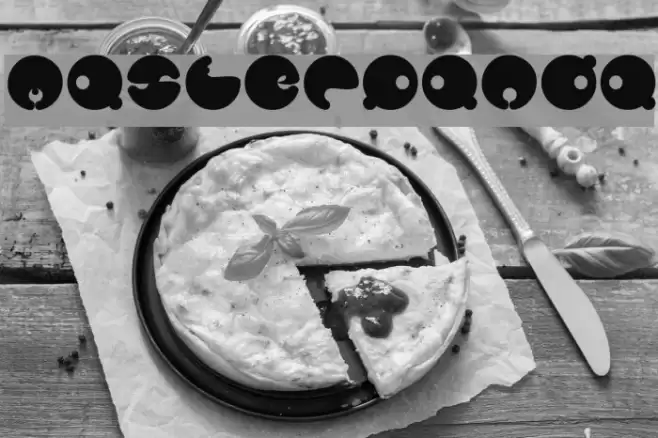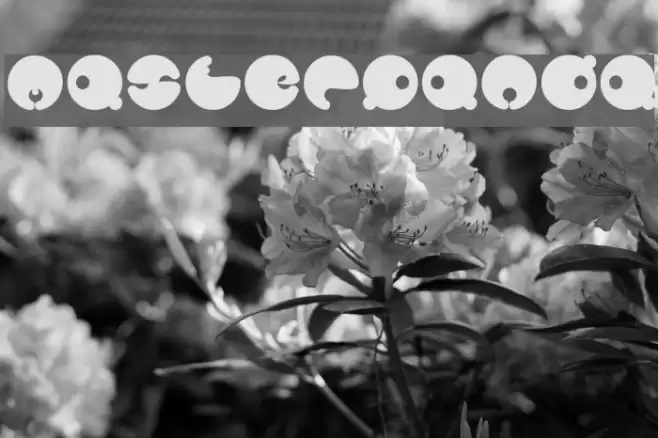
masterpanda Font
masterpanda Description
This font features a bold, playful design with characters that are predominantly circular in shape, each incorporating a unique cut-out or notch that adds a whimsical touch. The letters are heavily stylized, with a consistent thickness throughout, creating a cohesive and uniform appearance. The overall look is modern and eye-catching, making it suitable for creative and fun projects. The font's distinctiveness lies in its ability to convey a sense of playfulness and creativity, making it ideal for designs that aim to stand out and capture attention.
A bold, playful font with circular, notched characters from Uncategorized fonts.
- Proposed Projects: Ideal for children's books, playful branding, creative posters, and unique logo designs.